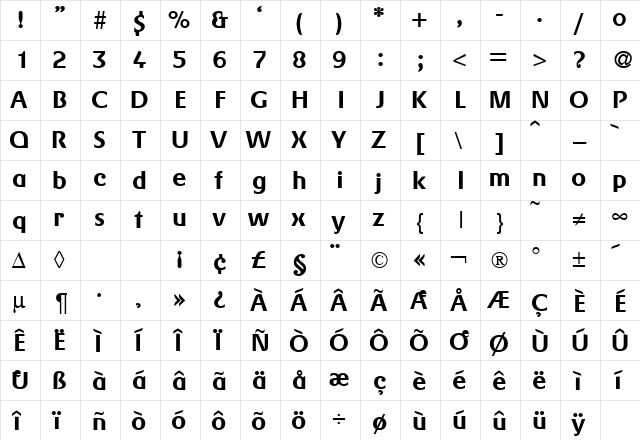
Gerling DB Regular
Design Context for Gerling DB Typeface
Gerling DB takes a measured approach to typography — its balanced proportions and neutral character make it a reliable workhorse for both digital and print work.